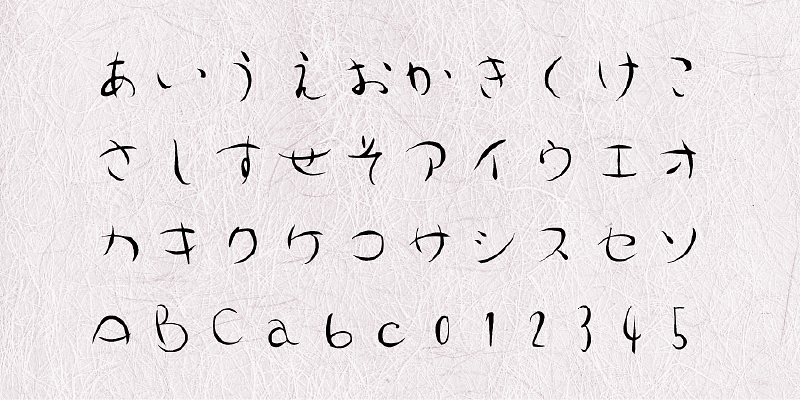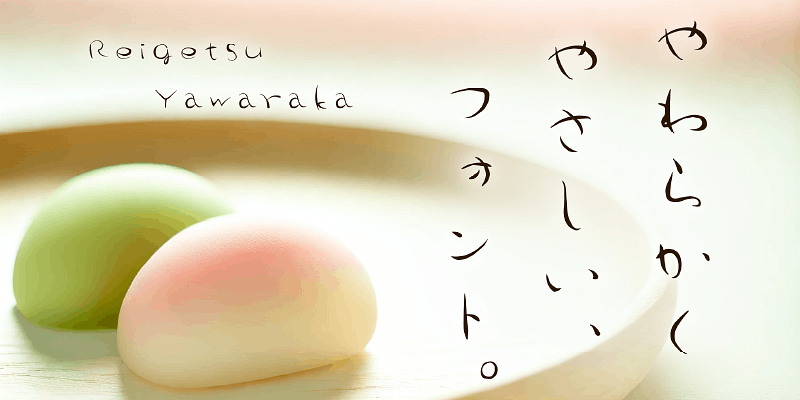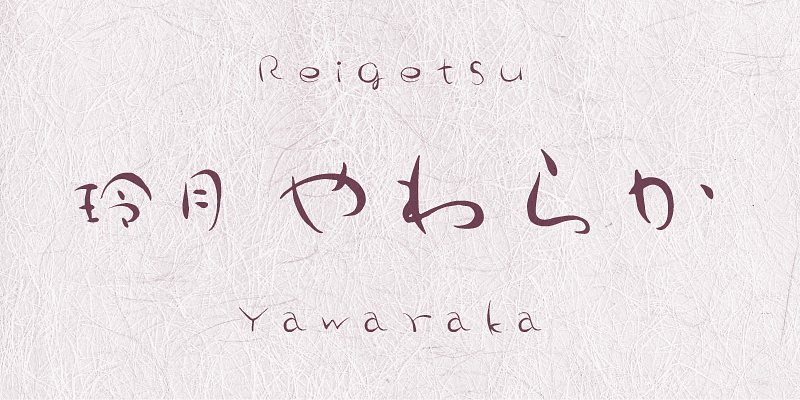
This is a brush script typeface with soft and beautiful curves. Great effort was made to make the letter forms emit softness and gentleness.
Keywords capturing the characteristics of this typeface are soft, light-weight, gentle, elegant and relaxation.
This is a very readable typeface for users of a wide range of ages, from children to older people, and can be used for titles, packages of foods and sweets as well as text used for everyday items.
This series of fonts contains original hand-written Japanese typefaces based on pen calligraphy released in 2002. With a warm-hearted look, these fonts will draw the reader’s eye to key points of a design.